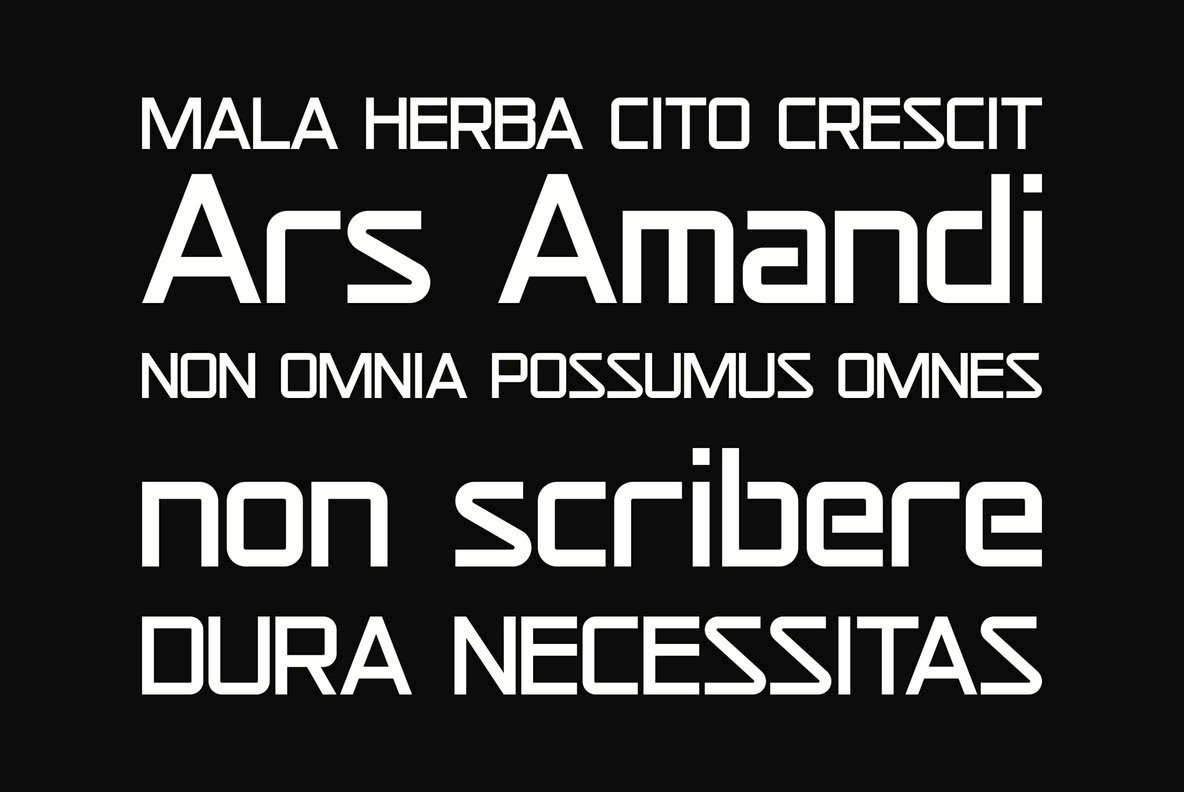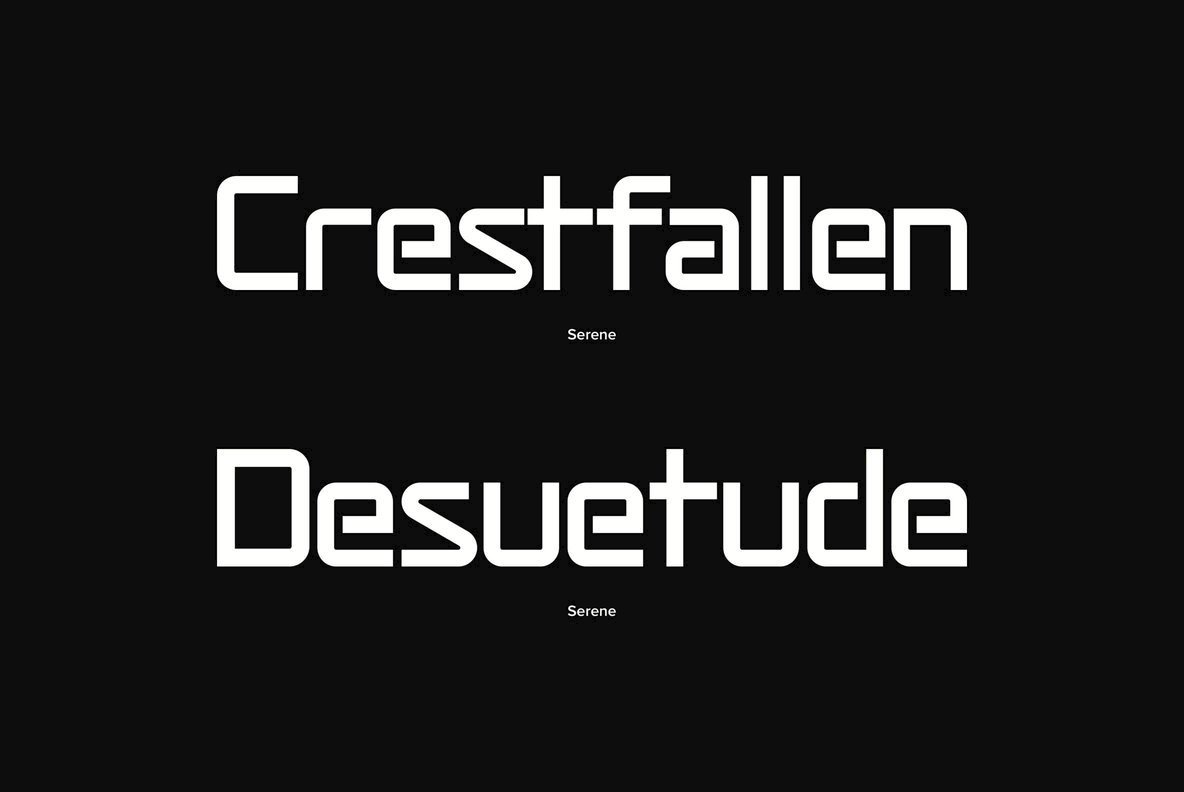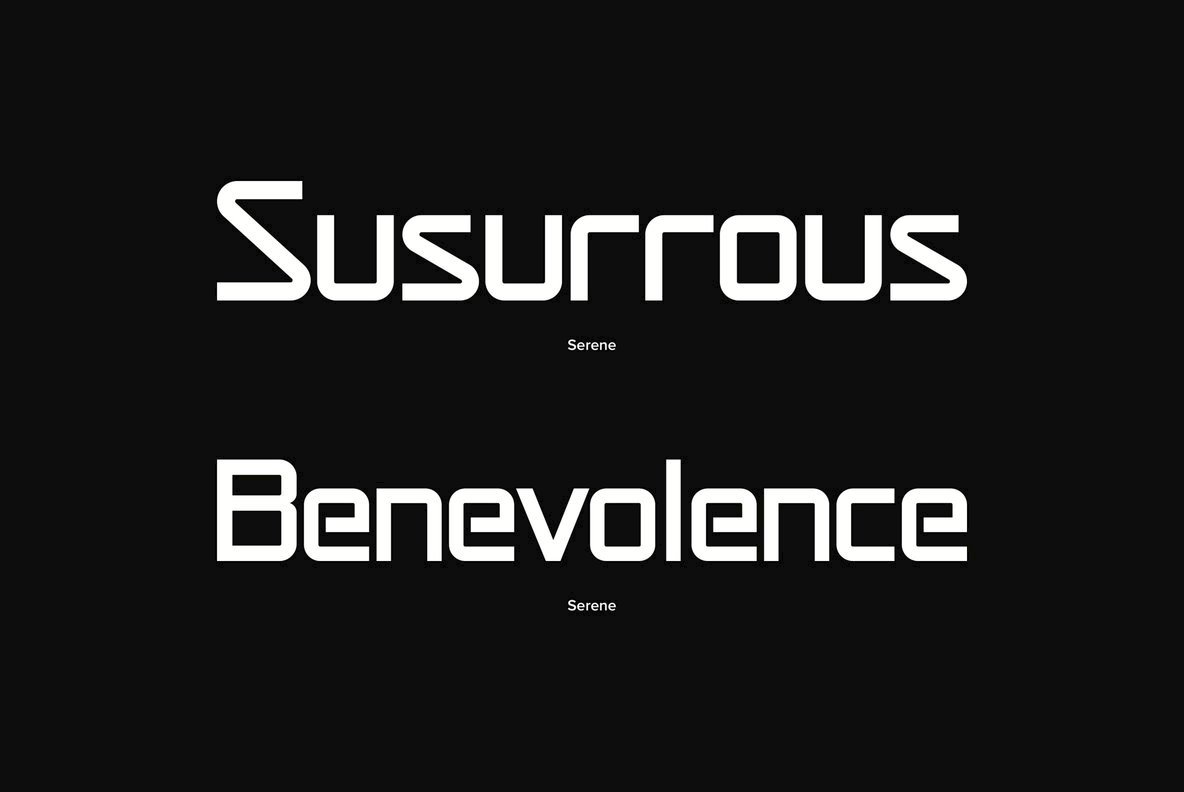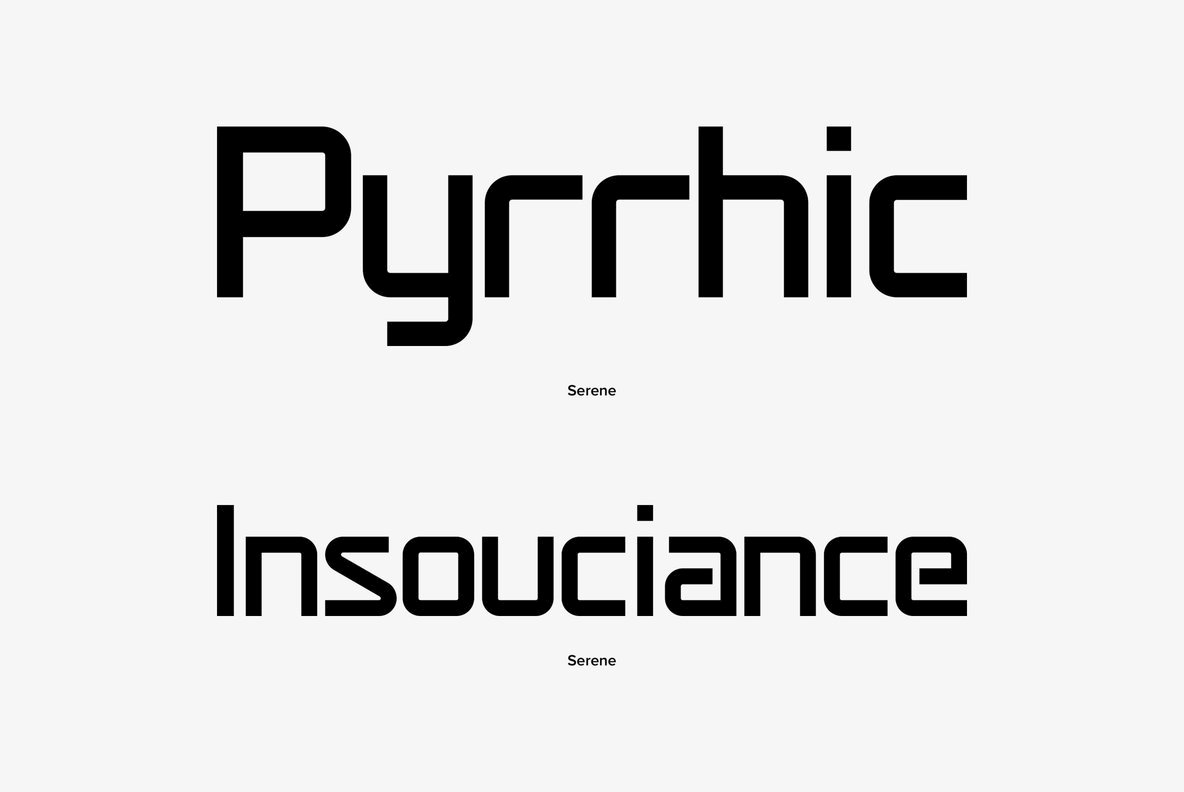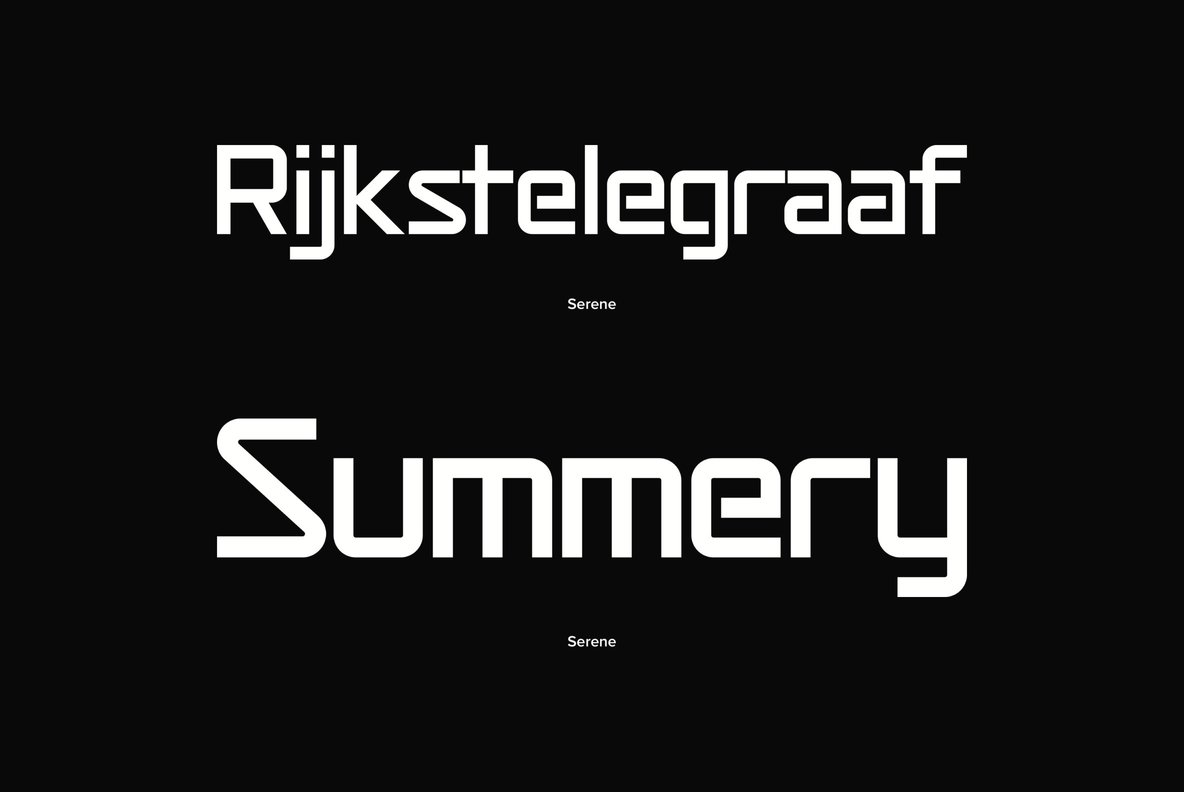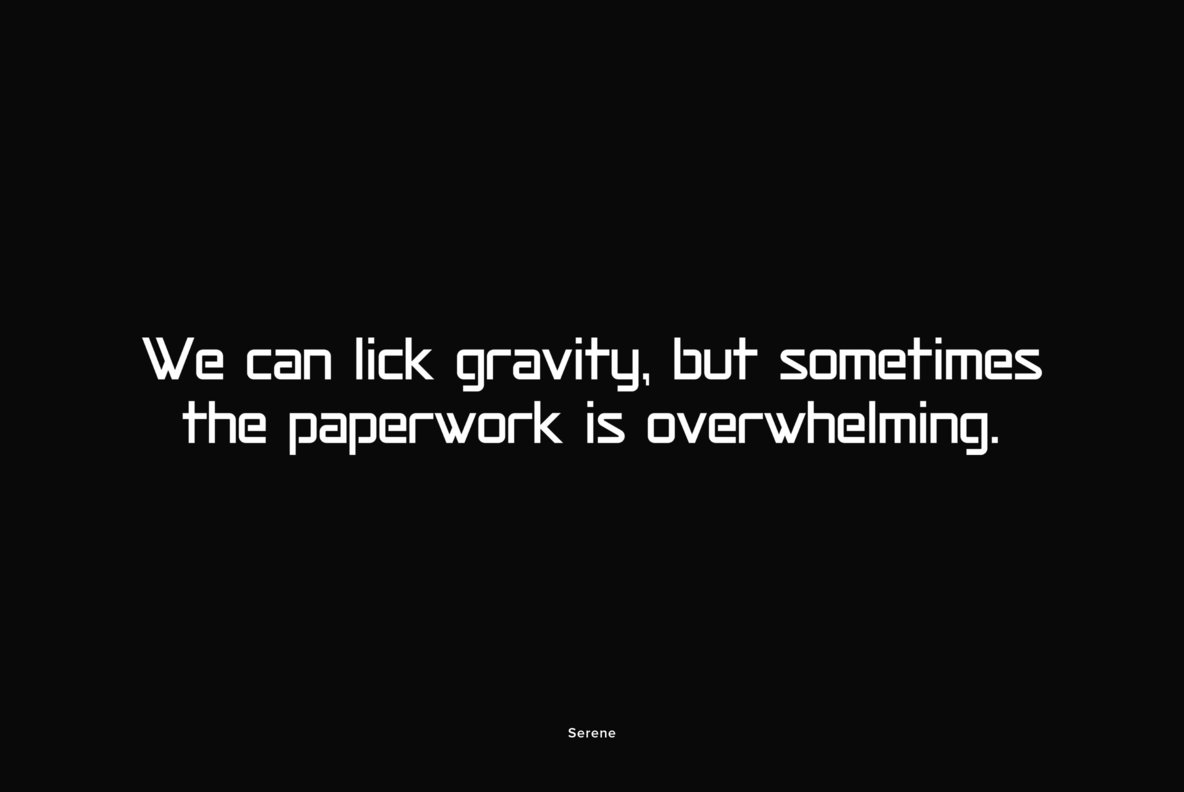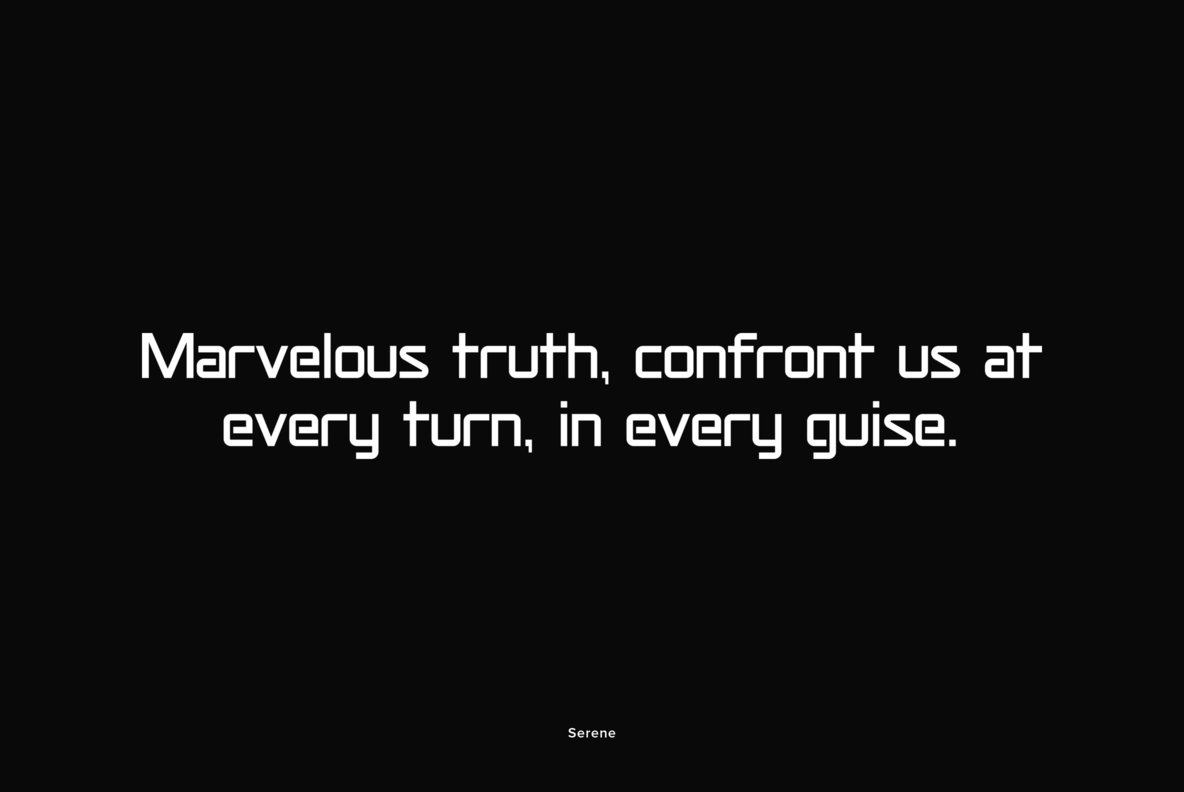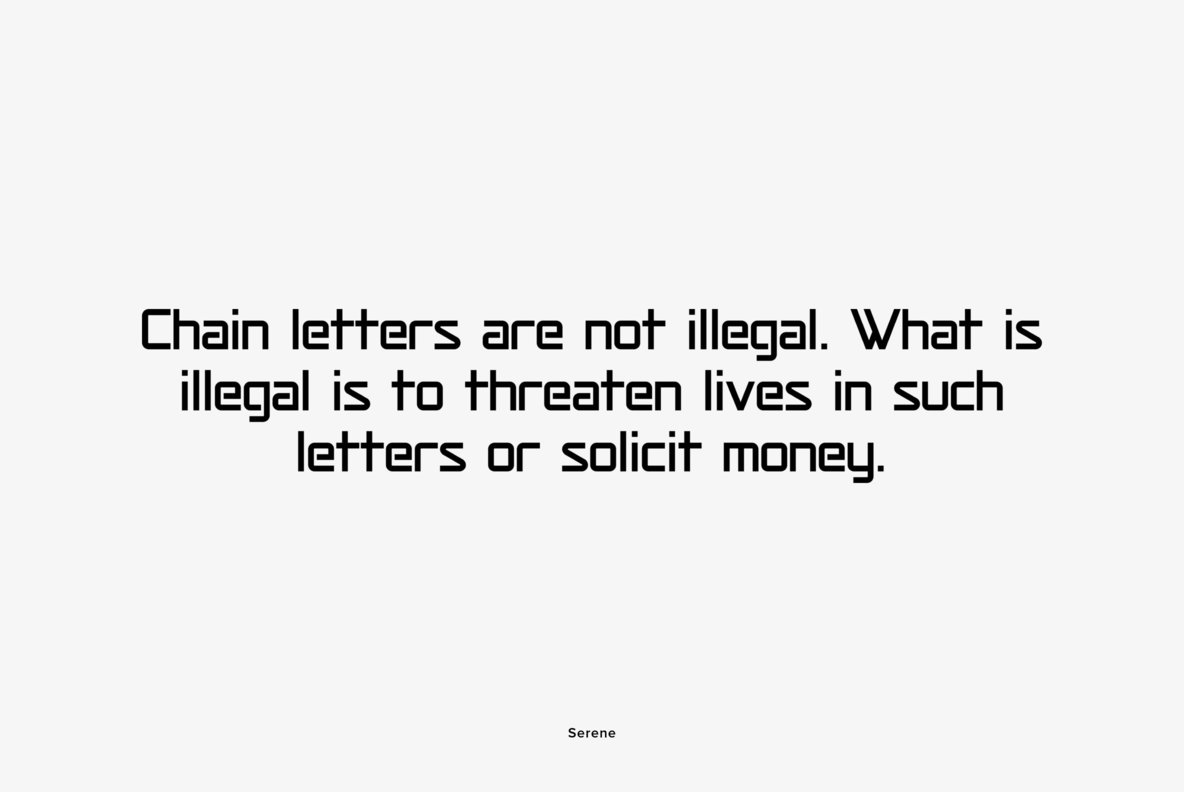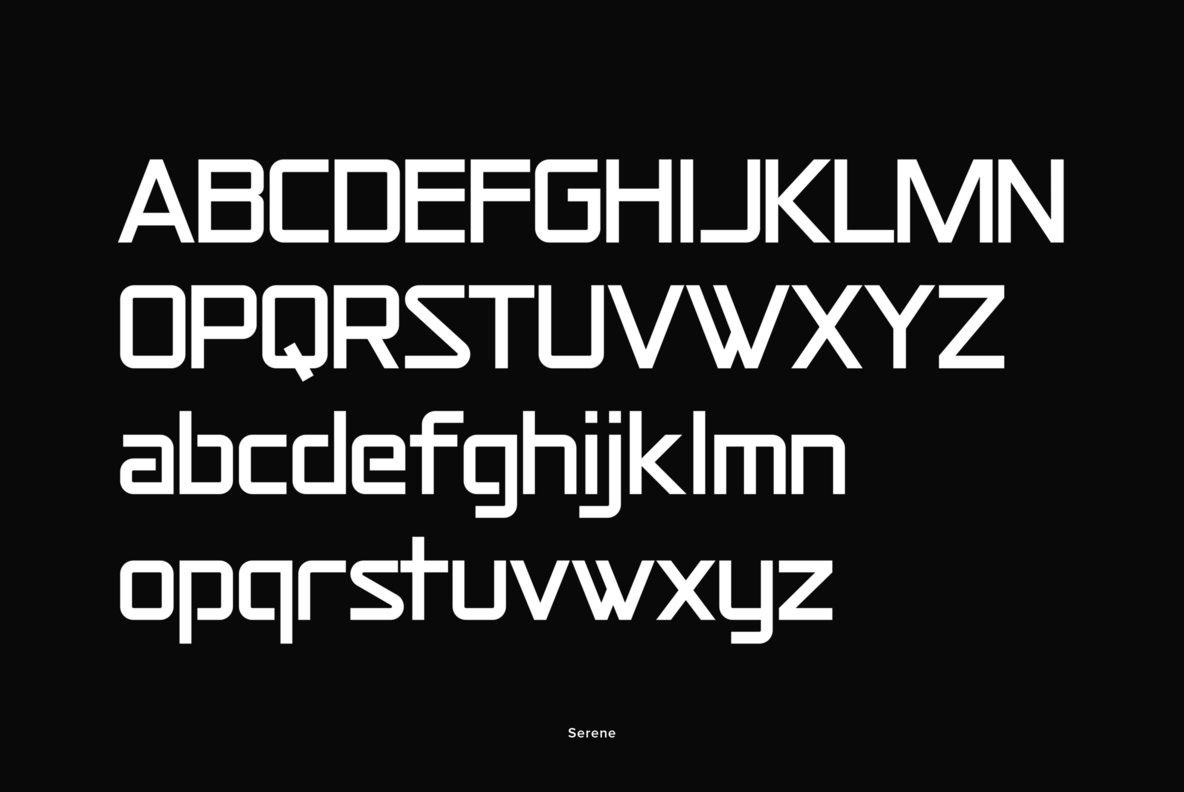
Serene
The Serene typeface is a masterful example of modern sans serif design, blending simplicity with a stylish edge that caters to a wide array of digital and print projects.Serene: Contemporary Sans Serif Elegance
Gerald Gallo is a professional graphic designer.While designing trademarks and logotypes, Gerald often designed unique lettering. It was a natural step to create entire alphabets from some of these designs. However, it was very difficult to have a font produced before the advent of the personal compute...